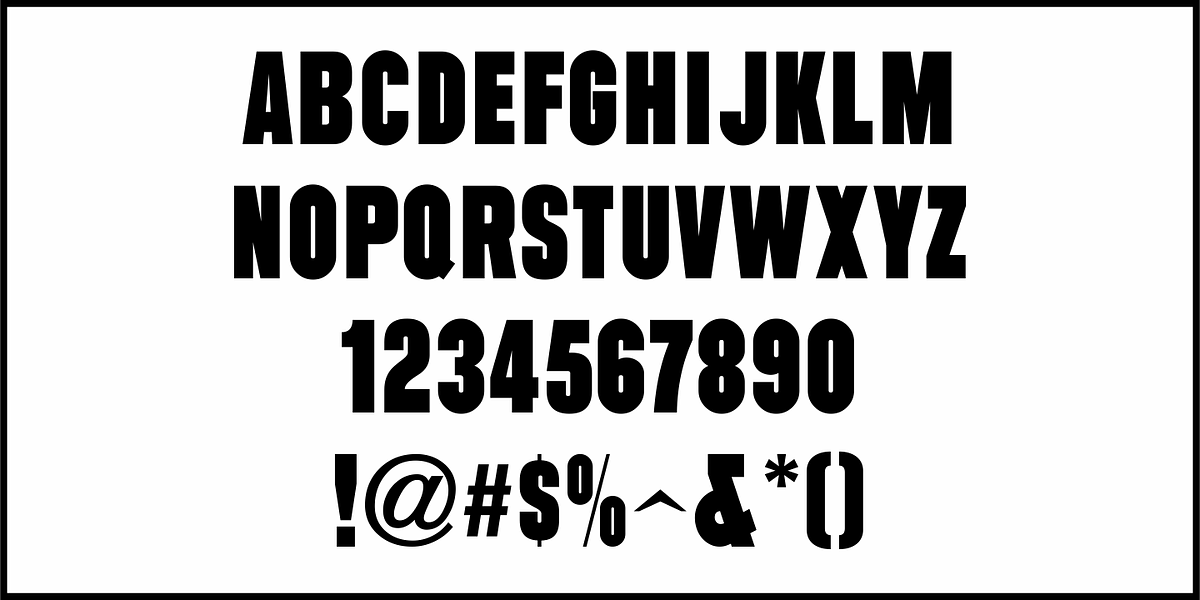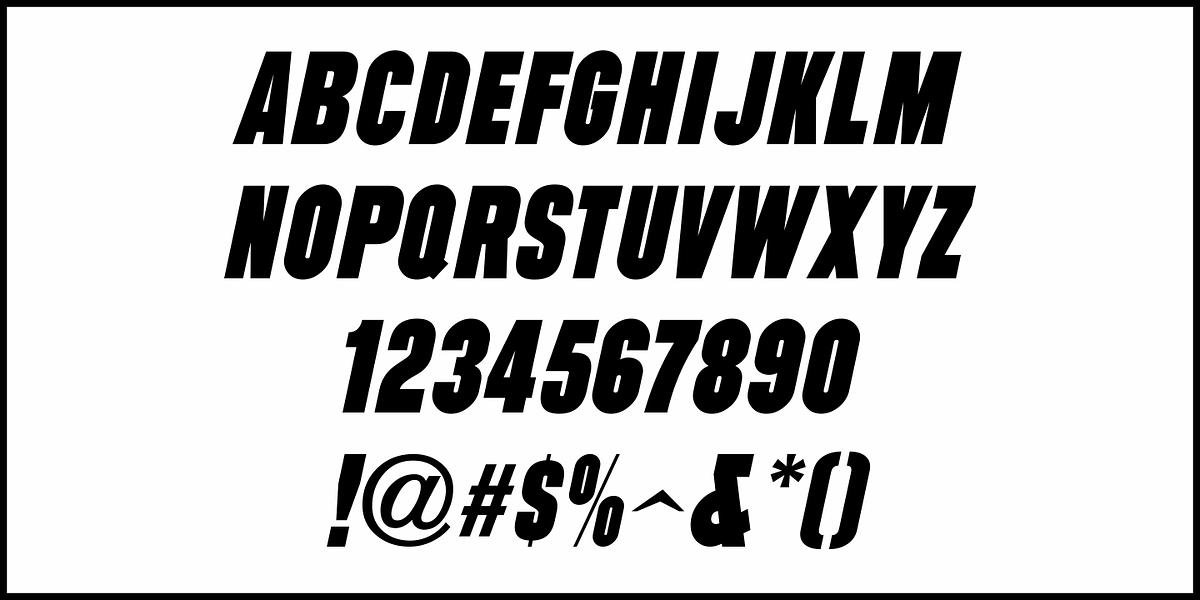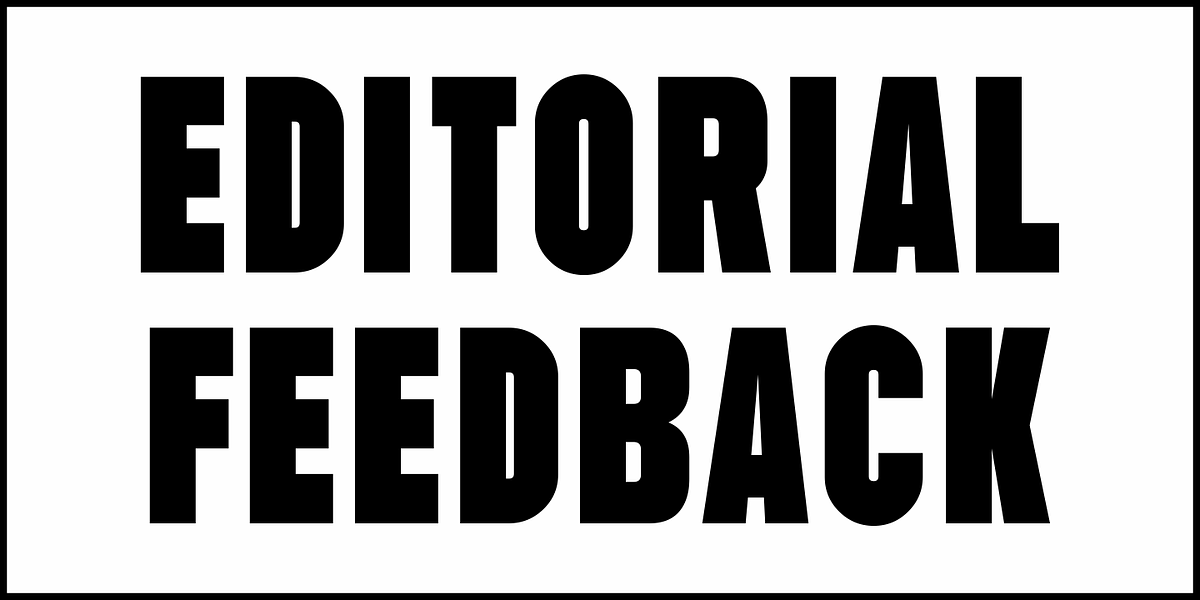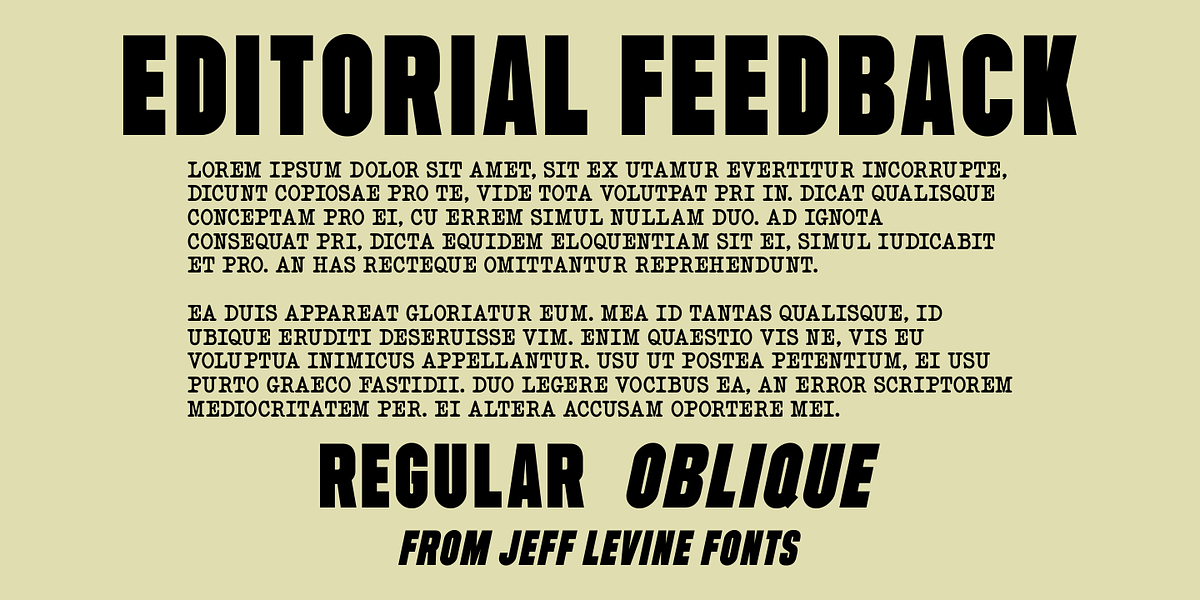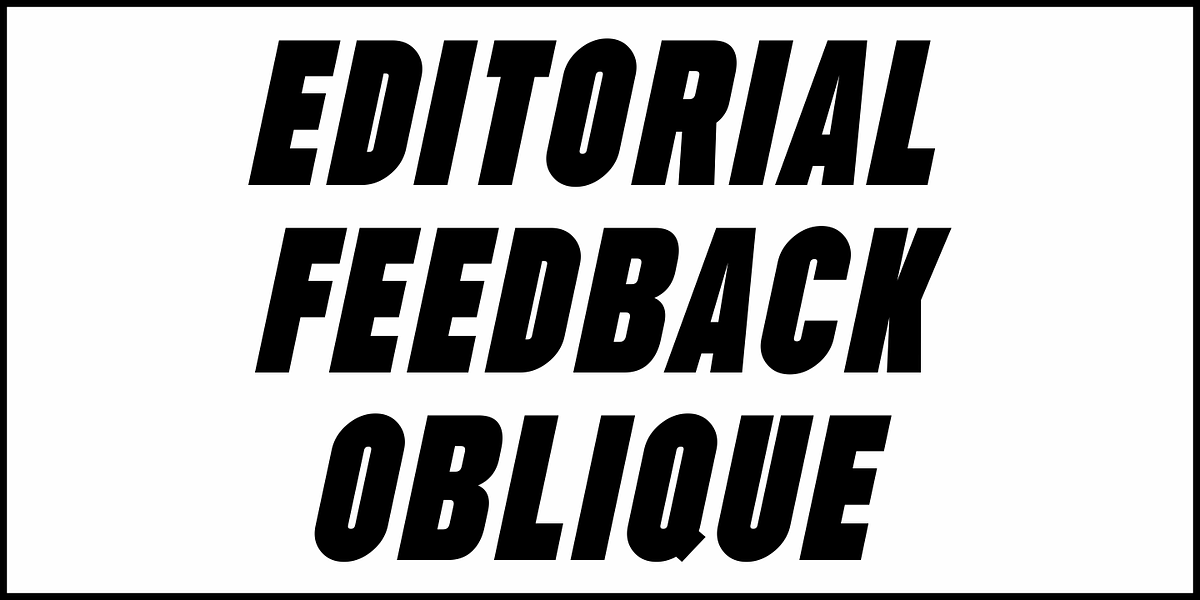
Editorial Feedback JNL
An ad in the Sept. 9, 1963 issue of Boxoffice Magazine for the Paul Newman picture Paul Newman "The Prize" was set in an ultra bold, condensed sans serif typeface.
This has been digitally recreated as Editorial Feedback JNL, and is available in both regular and oblique versions.